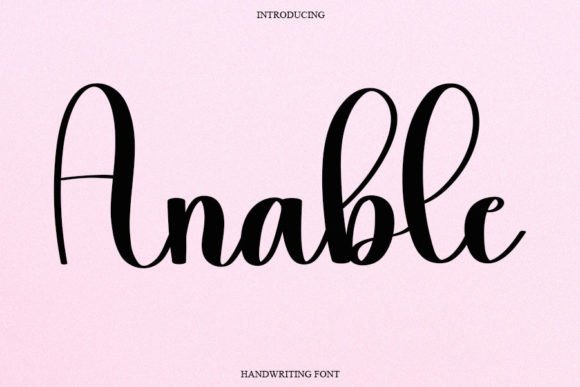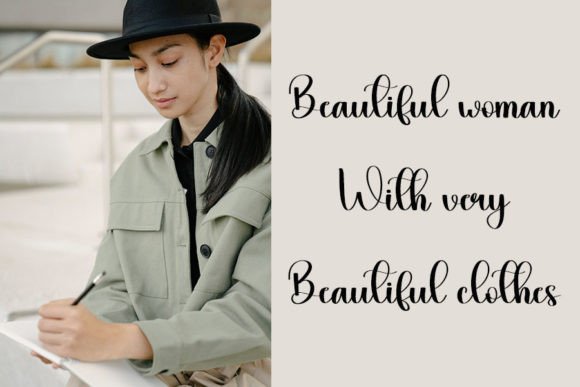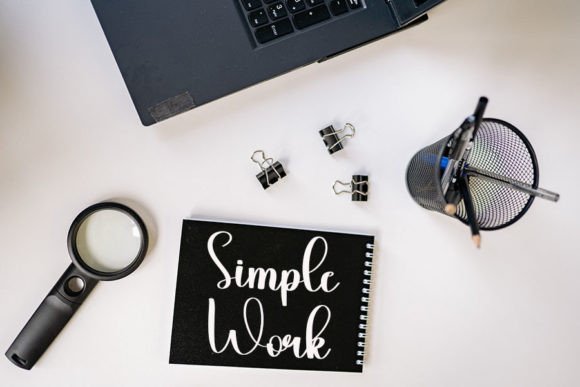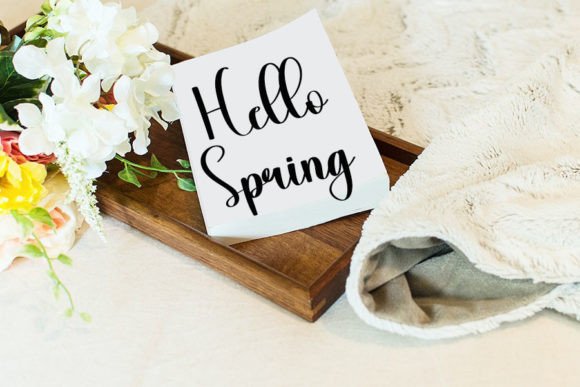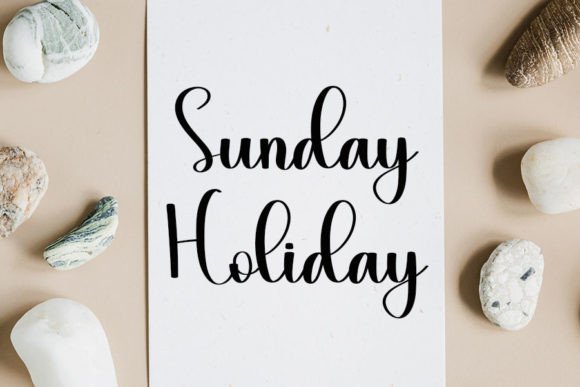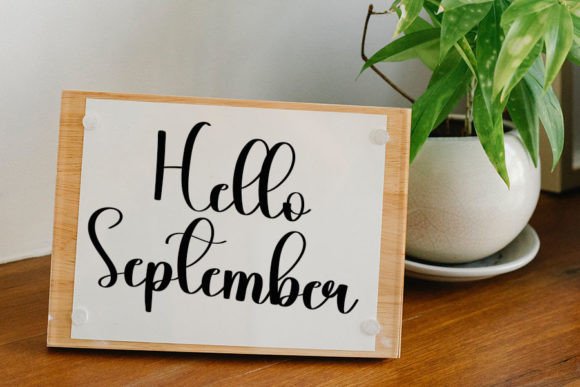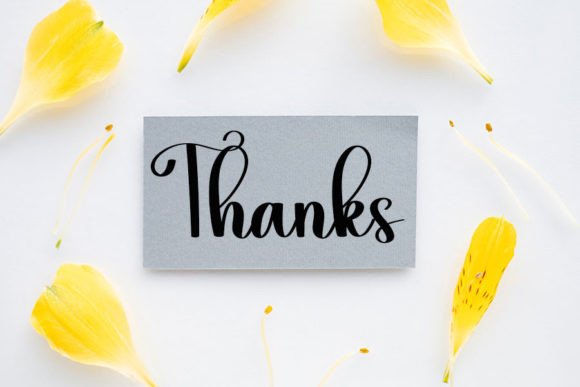
Anable Font
About Anable Font
**Anable: A Sweet and Luxurious Handwritten Font for Elegant Designs**
**Anable** is a sweet and beautiful handwritten font that brings a touch of luxury and elegance to your design projects. With characters that gracefully dance along the baseline, this font exudes charm and sophistication, making it an excellent choice for a wide range of creative endeavors.
Here’s how you can leverage the beauty of **Anable** in your design work:
– **Wedding Invitations:** Create stunning and romantic wedding invitations that leave a lasting impression with the exquisite charm of **Anable**.
– **Greeting Cards:** Design elegant and heartfelt greeting cards for special occasions, such as birthdays, anniversaries, and holidays.
– **Logo Design:** Use this font to craft logos that convey a sense of refinement and style, perfect for upscale brands.
– **Stationery:** Elevate your stationery designs, including letterheads and envelopes, with the luxury spark of **Anable**.
– **Product Packaging:** Make your products stand out on the shelves with packaging that exudes elegance and sophistication thanks to custom typography featuring this font.
– **Quotes and Posters:** Create beautiful and inspirational posters or social media graphics with the graceful letterforms of **Anable**.
The unique charm of **Anable** lies in its ability to add a touch of luxury and refinement to your designs. The characters flow smoothly along the baseline, giving your typography a handcrafted and personalized feel that resonates with sophistication.
Whether your design project is focused on romantic themes, upscale branding, or conveying a sense of elegance, **Anable** is a font that can effortlessly enhance the beauty of your creations.
In summary, **Anable** is a font that offers a sweet and luxurious handwritten style, perfect for adding an elegant touch to a wide range of design projects. Embrace the grace and charm of **Anable** to infuse your work with a sense of sophistication and luxury, creating designs that captivate and inspire.